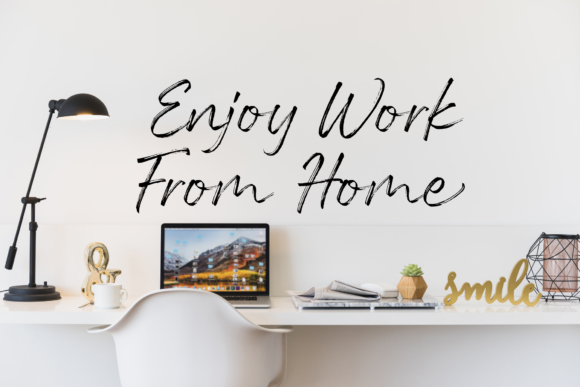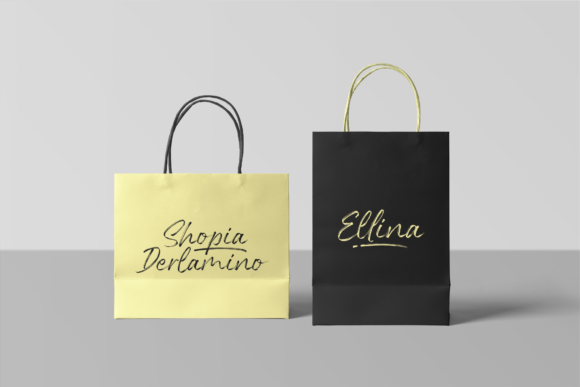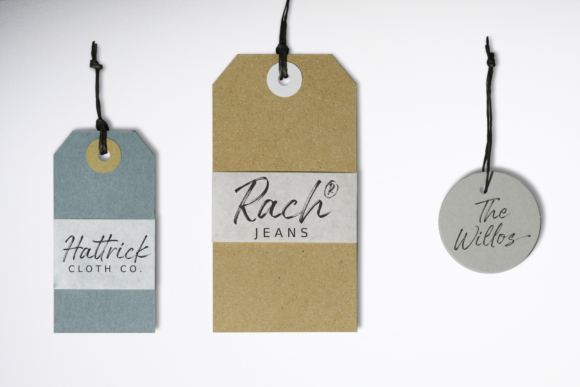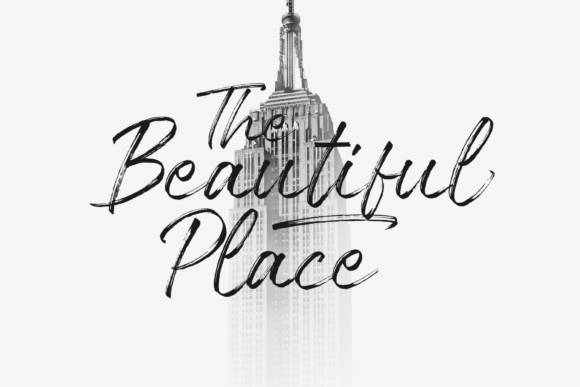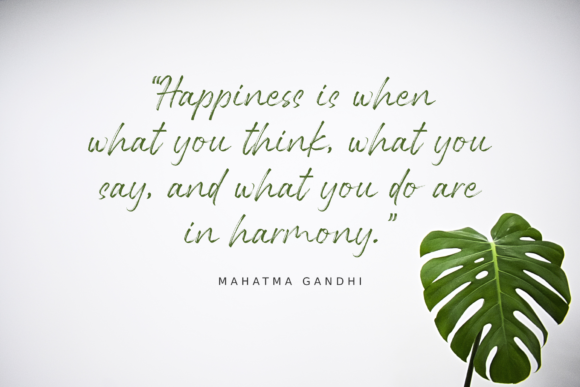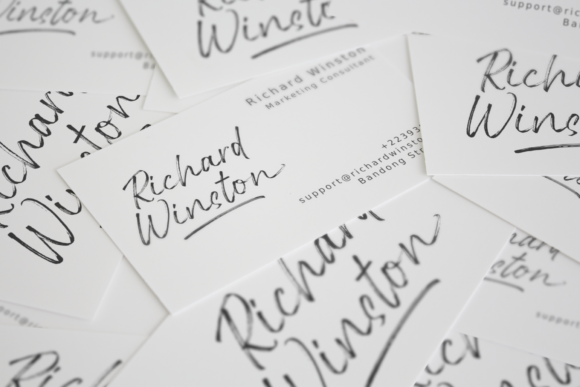
Introducing Fallmora Font: The Perfect Blend of Casual Charm and Handwritten Elegance
Are you a designer, crafty DIY enthusiast, or a social media influencer looking for a font that can add a touch of personality to your creative projects? Look no further than Fallmora Font, a casual and charming handwritten font that is sure to make your content stand out from the crowd. Created using a brush pen, Fallmora Font brings a unique, organic feel to any design, making it perfect for a wide range of applications.
The Story Behind Fallmora Font
Fallmora Font is the brainchild of a talented designer who sought to create a font that captures the essence of handwritten elegance with a casual twist. By using a brush pen, the designer was able to infuse the font with a sense of fluidity and movement, giving it a dynamic and expressive feel. The result is a font that is both charming and sophisticated, making it ideal for a variety of creative projects.
Key Features of Fallmora Font
- Handwritten with a brush pen: Fallmora Font is created using a brush pen, which gives it a unique, organic feel that sets it apart from other fonts.
- Casual and charming: The font has a relaxed, casual vibe that makes it perfect for designs that require a touch of personality.
- Highly versatile: Fallmora Font can be used for a wide range of applications, from social media graphics and blog posts to branding and packaging.
- Easily readable: Despite its casual nature, Fallmora Font is highly legible, making it suitable for body text as well as headings.
Use Cases for Fallmora Font
So, how can you use Fallmora Font in your creative projects? Here are a few ideas to get you started:
- Social media graphics: Add a touch of personality to your social media posts with Fallmora Font. Use it to create eye-catching graphics, quotes, and promotional materials.
- Blog and website design: Use Fallmora Font to add a casual, approachable feel to your blog or website. It’s perfect for headings, titles, and other display text.
- Branding and packaging: Fallmora Font is a great choice for branding and packaging projects that require a touch of elegance and sophistication.
- DIY crafts: If you’re a crafty DIY enthusiast, Fallmora Font is a great choice for your handmade projects, such as card making, scrapbooking, and journaling.
Tips for Using Fallmora Font
To get the most out of Fallmora Font, here are a few tips to keep in mind:
- Use it with contrasting colors: Fallmora Font looks best when paired with contrasting colors that make it stand out.
- Experiment with font sizes: Don’t be afraid to experiment with different font sizes to create visual interest and hierarchy.
- Pair it with other fonts: Fallmora Font can be paired with other fonts to create a unique and interesting typography combination.
Fallmora Font is a versatile and charming handwritten font that is sure to add a touch of personality to your creative projects. With its casual and elegant feel, it’s perfect for designers, crafters, and social media influencers looking to make their content stand out. Whether you’re looking to create social media graphics, blog posts, branding materials, or DIY crafts, Fallmora Font is a great choice. So why not give it a try and see the difference it can make in your designs?